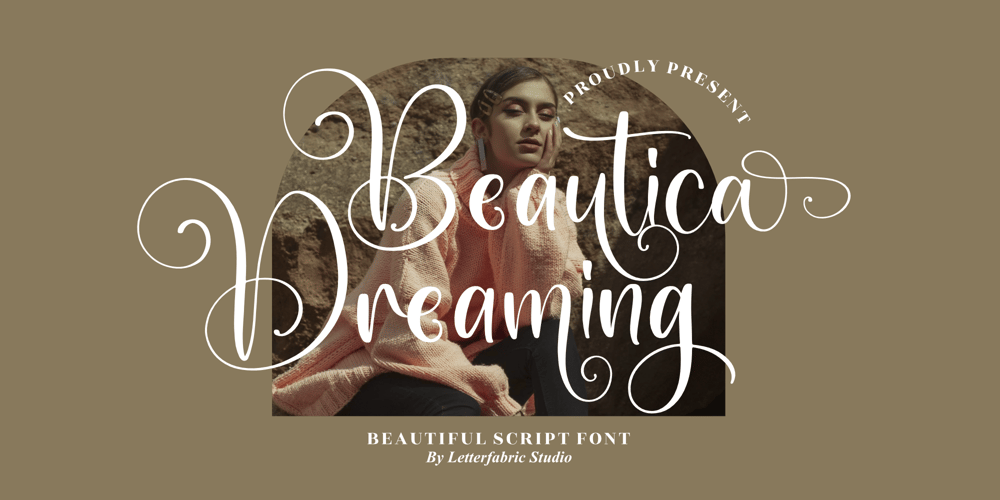
Beautica Dreaming
Beautica Dreaming font
Beautica Dreaming Font Family was designed by Heru Utama Putra and published by Letterena Studios. Beautica Dreaming contains 2 styles and family package options. Beautica Dreaming is an elegant script font with a contemporary atmosphere and impeccable form, inspired by timeless classic calligraphy. This font is PUA encoded which means you can access all glyphs and swashes with ease!